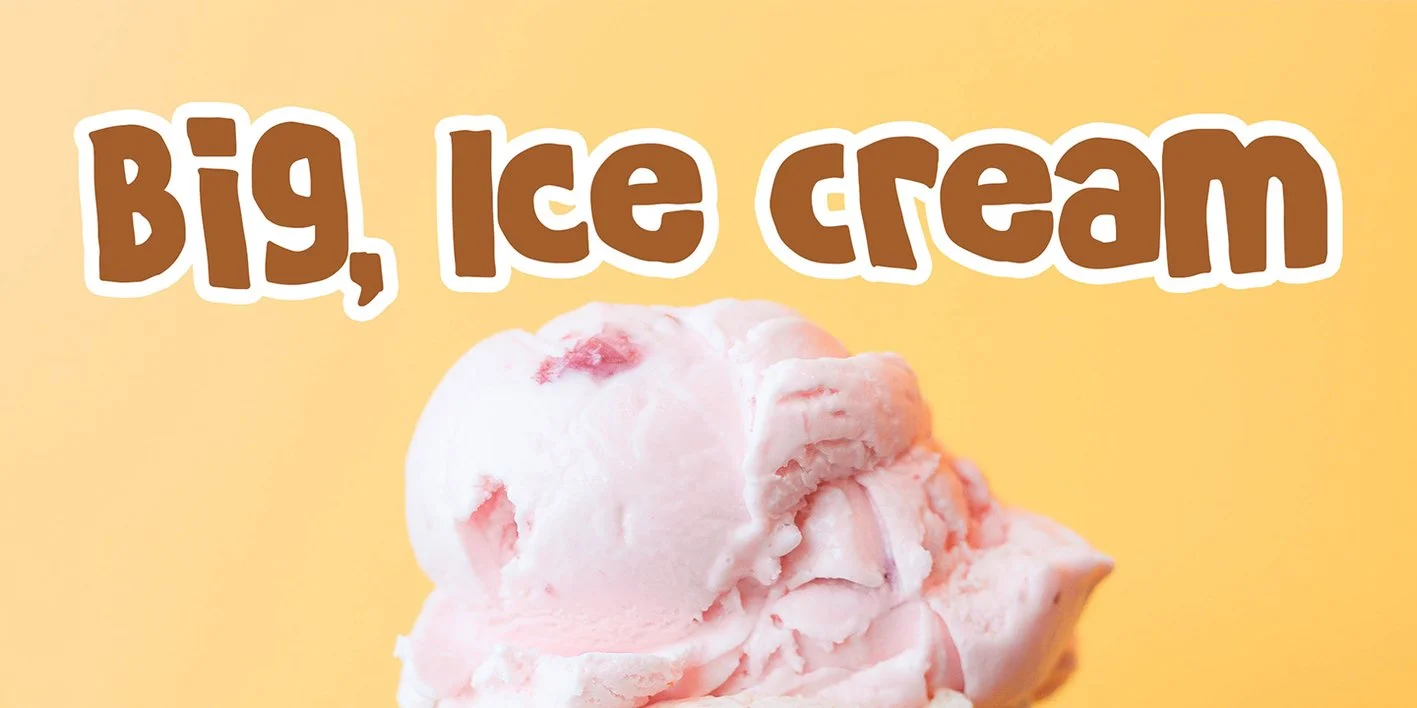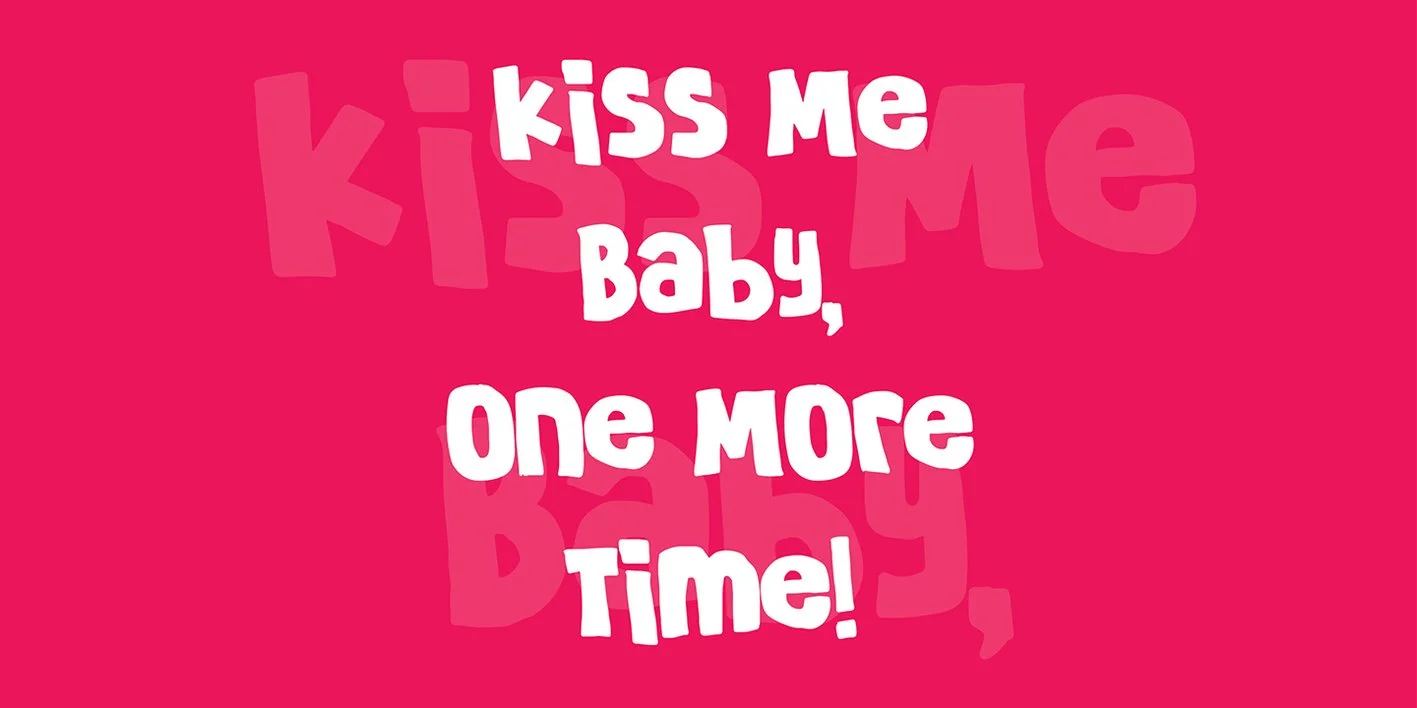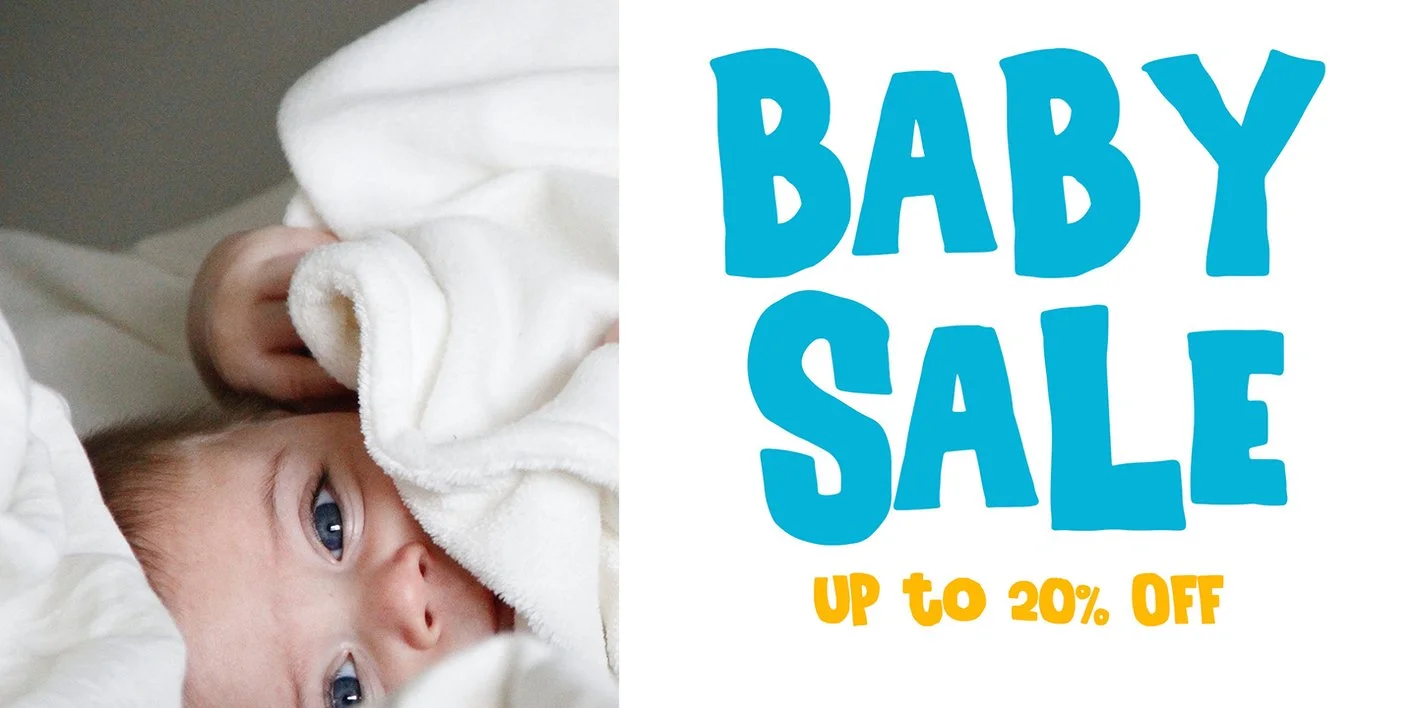
Cardust Font
A good typeface communicates tone before a single word is read. Cardust achieves this through strong typographic hierarchy support. The typeface brings a versatile sensibility to a broad range of creative disciplines, with distinctive character without sacrificing readability that holds up whether the work is print-first or screen-first.
In practice, Cardust proves particularly effective for editorial layouts, web design, brand identity systems, signage systems, logo design. Designers reaching for it find that the type decisions feel resolved rather than laboured — a useful quality when client timelines are tight.
The range of applications extends to advertising campaigns, packaging design, poster creation, product labels. That breadth is deliberate: the proportions and spacing were stress-tested across a wide range of mock briefs before the typeface was finalised.
Pairing Cardust with a contrasting serif or a neutral grotesque gives mixed-format layouts a clear visual grammar without requiring constant size adjustments to establish hierarchy.
Freelance designers across print and digital disciplines find Cardust a reliable choice for projects that demand both personality and restraint. The design avoids the self-conscious quirkiness that dates quickly, settling instead for considered distinctiveness that holds up over time.